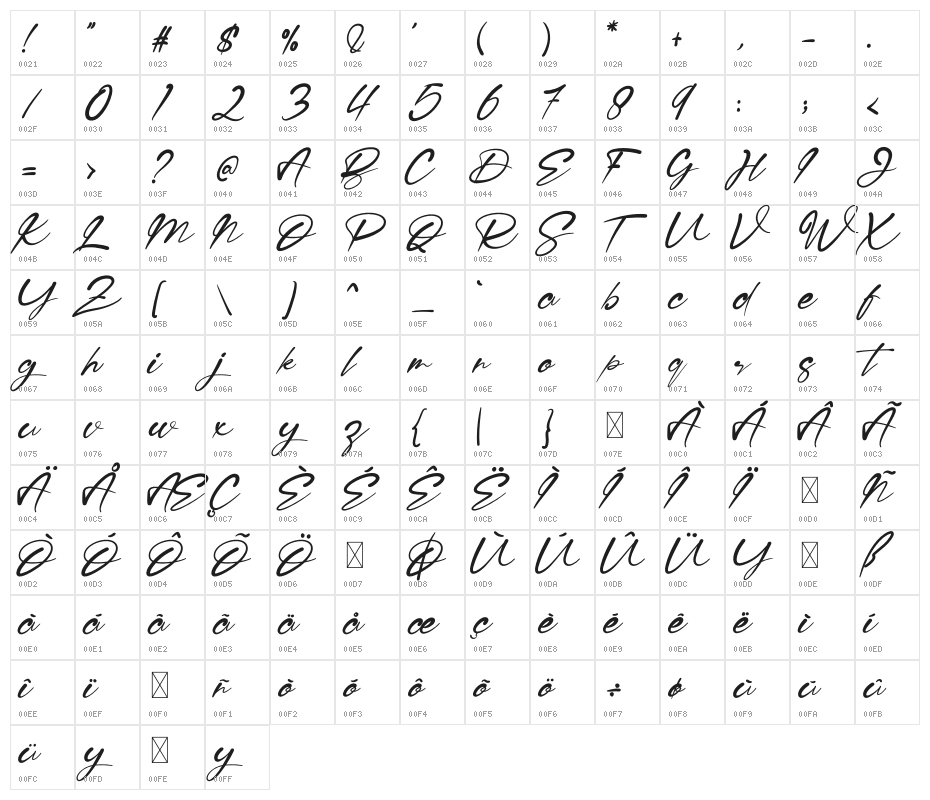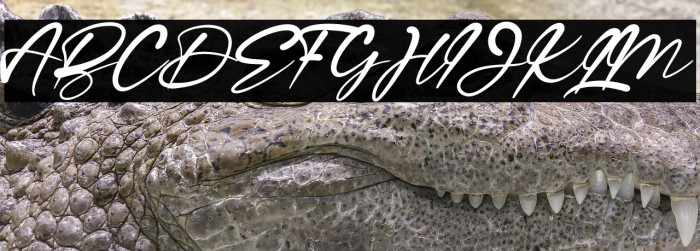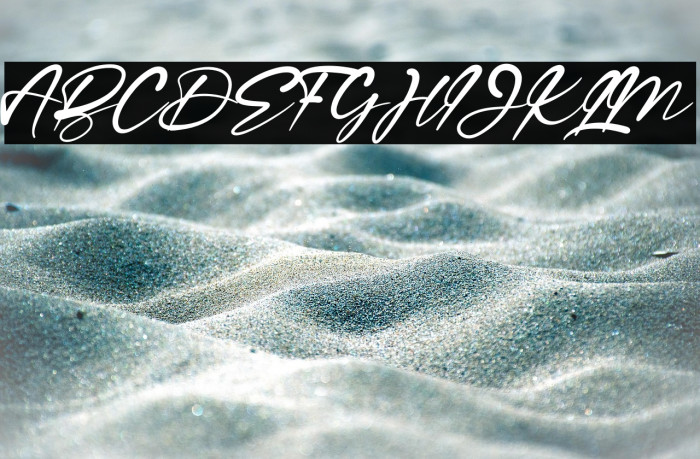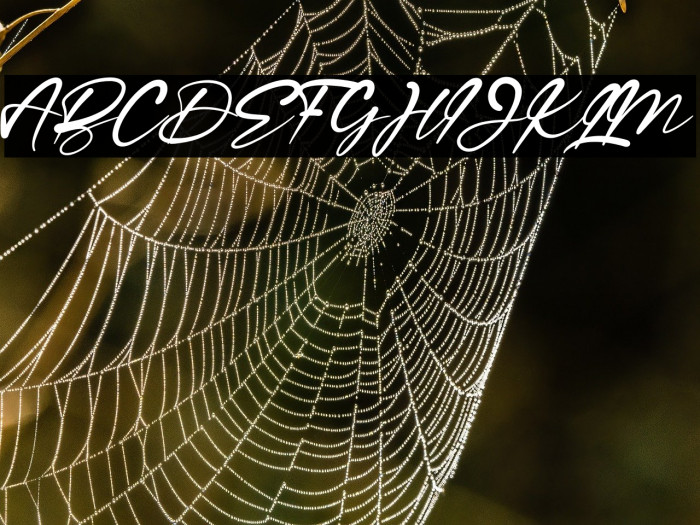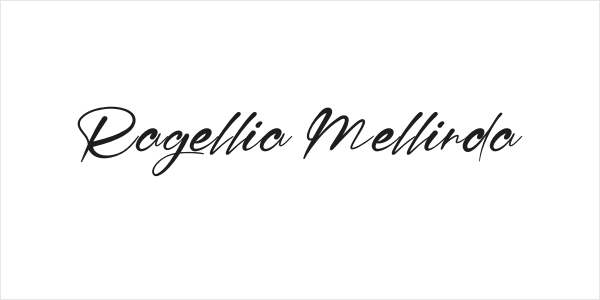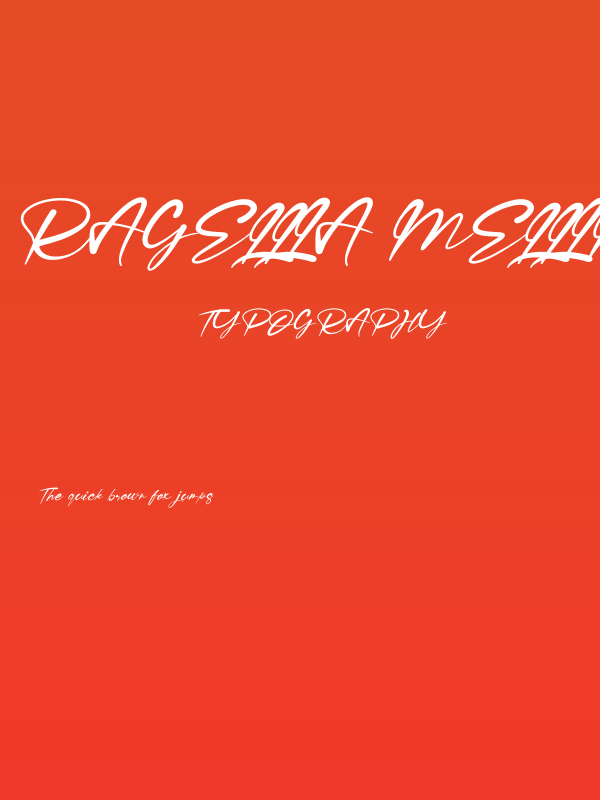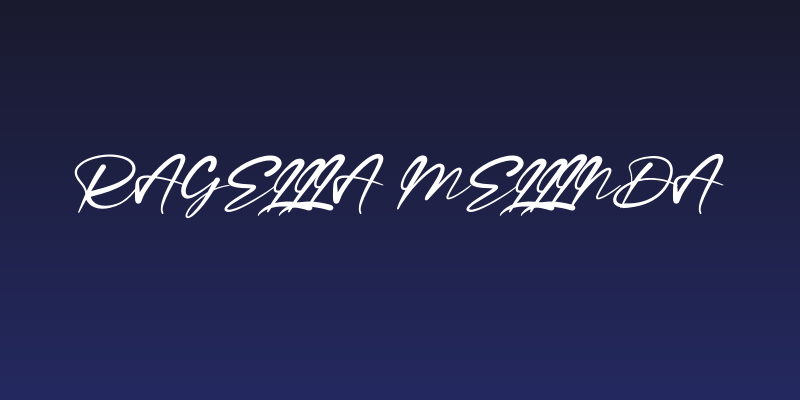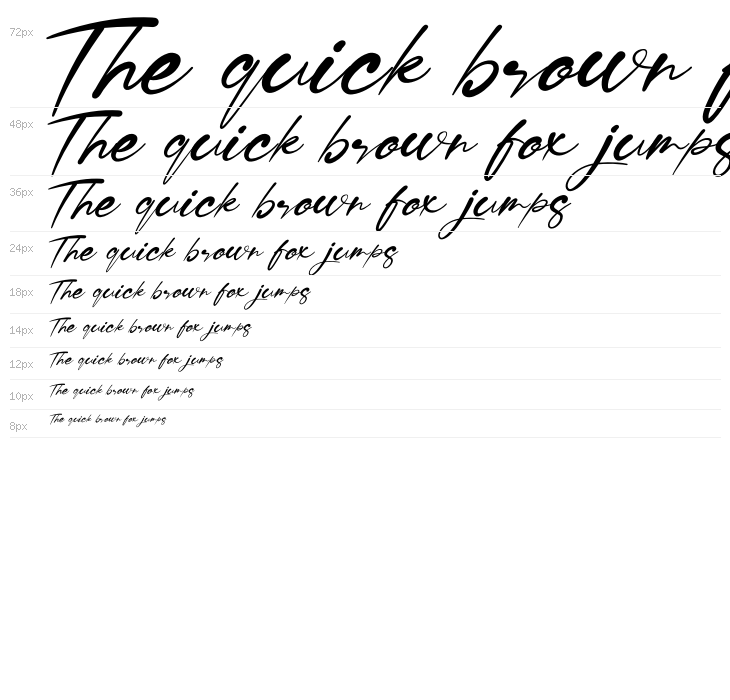
Ragellia Mellinda Font
Ragellia Mellinda Description
This font features a flowing, cursive style with elegant loops and swashes, giving it a handwritten appearance. The characters are connected, creating a seamless and fluid look. The uppercase letters are bold and prominent, while the lowercase letters maintain a consistent flow. The numerals and special characters complement the overall aesthetic, adding to its versatility. The font's design is both sophisticated and approachable, making it suitable for a variety of creative applications.
| Overall Style | Elegant, Handwritten |
| Proposed Projects | Ideal for wedding invitations, greeting cards, branding, and personal stationery. |